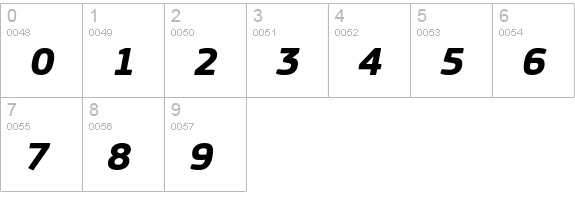
PFSquareSansPro-BoldItalic is a modern and stylish font that exudes confidence and sophistication. Its bold italic style adds a touch of elegance to any design project. This versatile typeface is perfect for creating eye-catching headlines, logos, and branding materials. With its clean lines and distinctive letterforms, PFSquareSansPro-BoldItalic is sure to make a statement. The best part? PFSquareSansPro-BoldItalic is available for free download at FontsMarket.com. This means you can easily access this high-quality font and use it in your personal and commercial projects without any cost. Don't miss out on the opportunity to enhance your designs with this exceptional typeface. Download PFSquareSansPro-BoldItalic today and take your creations to the next level!